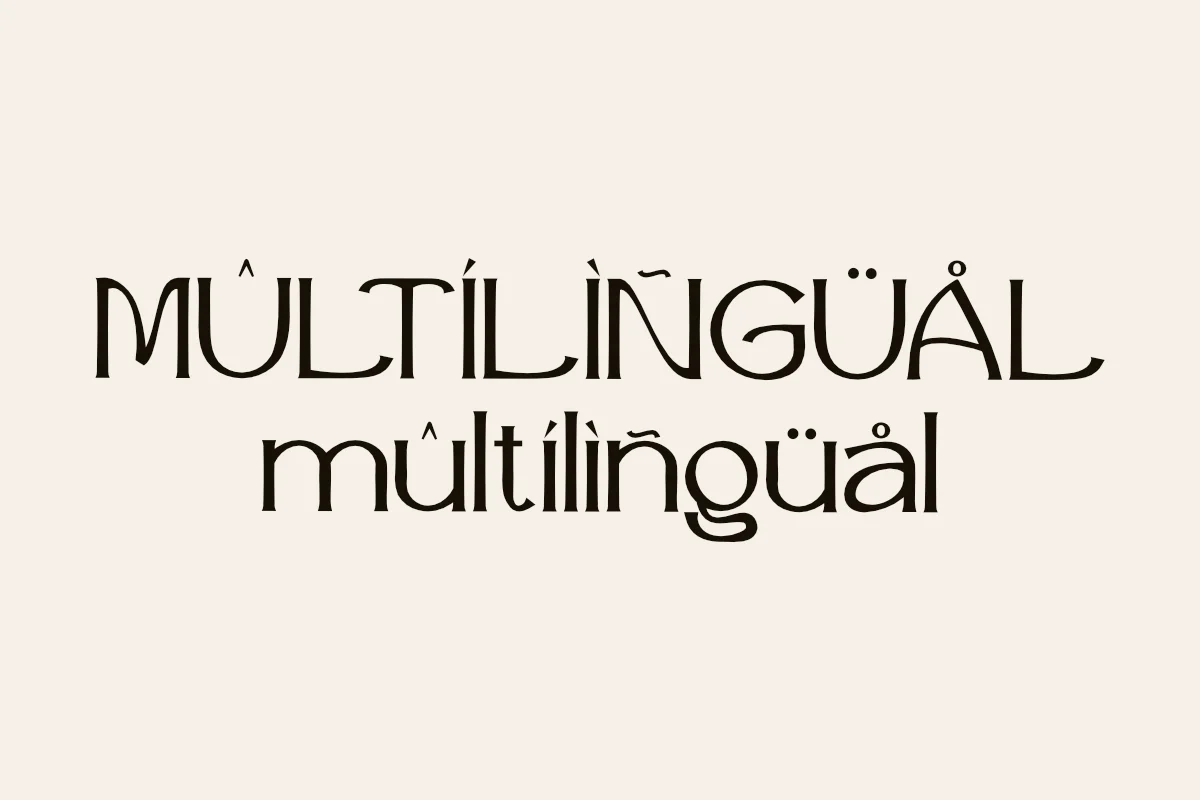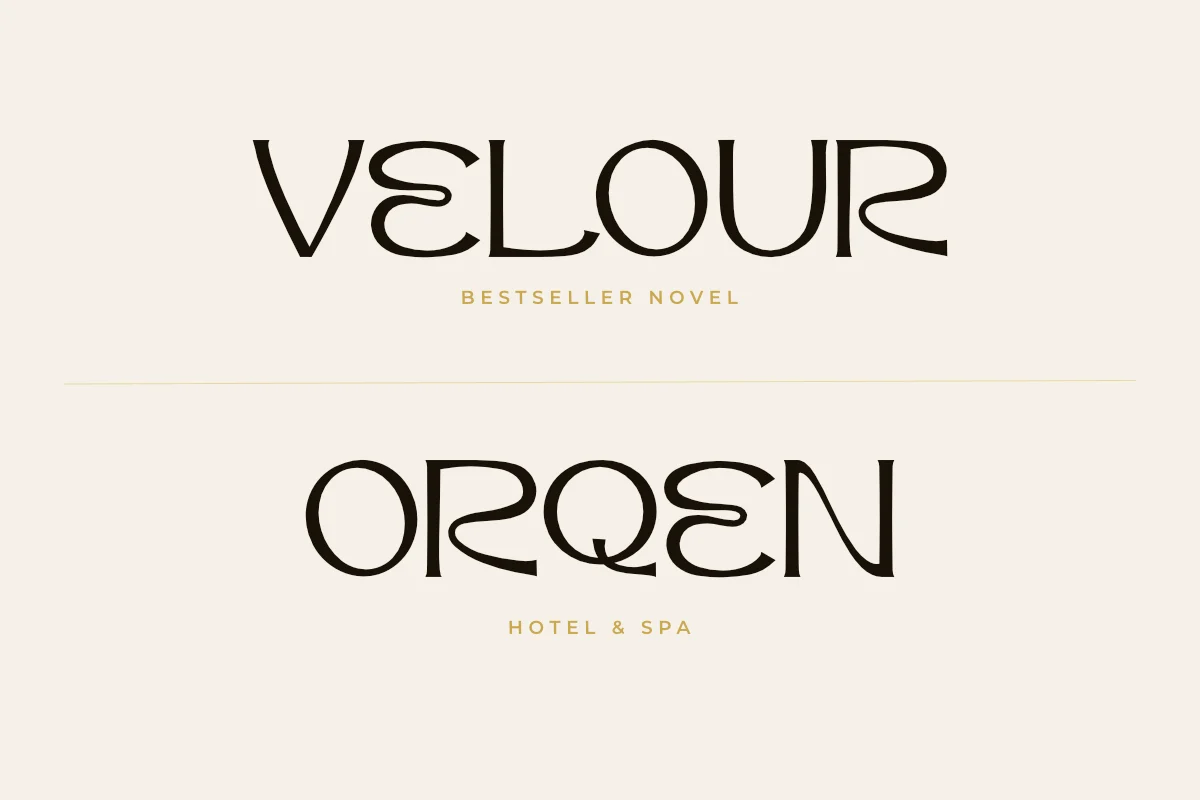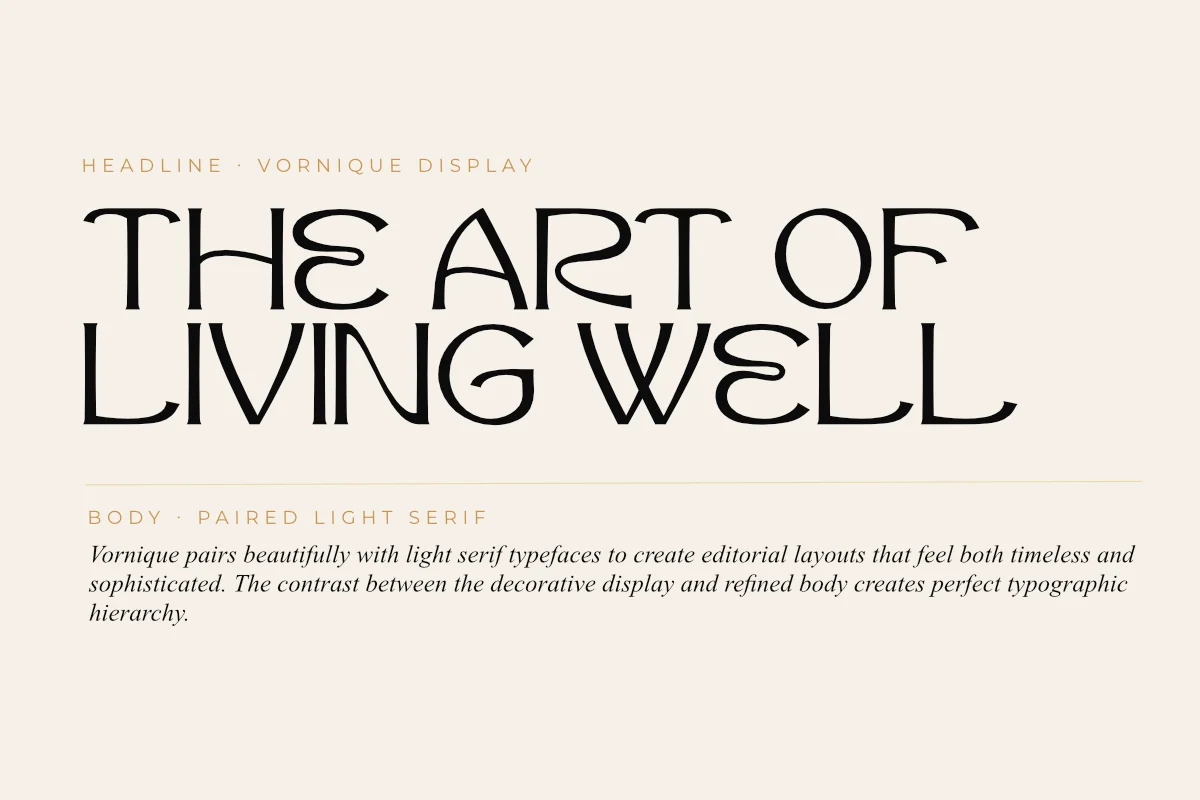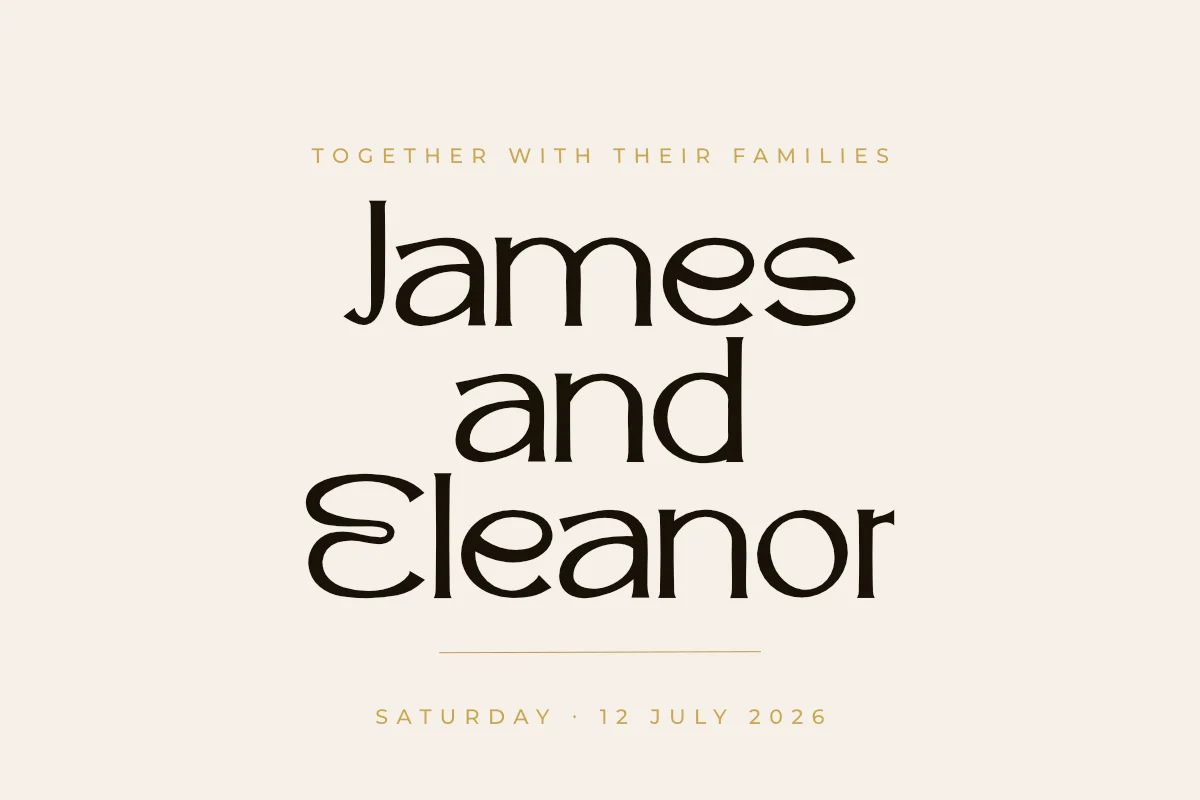
Vornique – Art Deco Bold Display Font
Vornique is a bold Art Deco display typeface designed with geometric circular forms, distinctive round terminals, and ornamental details. This typeface delivers a striking and sophisticated look, making it ideal for editorial, branding, and decorative design.
Carefully crafted with expressive letterforms and architectural glyph construction, Vornique brings a distinctive Art Deco character to fashion visuals, book covers, wedding stationery, product packaging, and high-end typographic compositions.
• Uppercase & lowercase characters
• Numerals & punctuation
• Geometric circular construction
• Distinctive round terminals
• Art Deco ornamental style
• Bold display weight